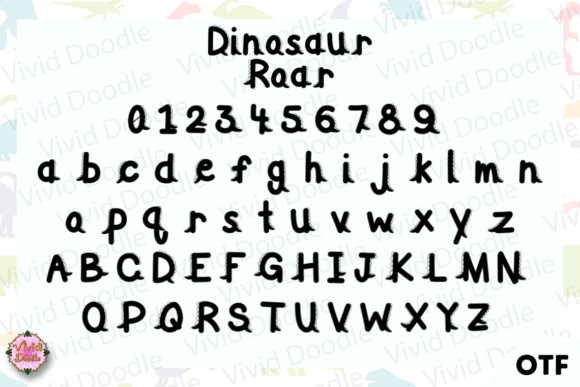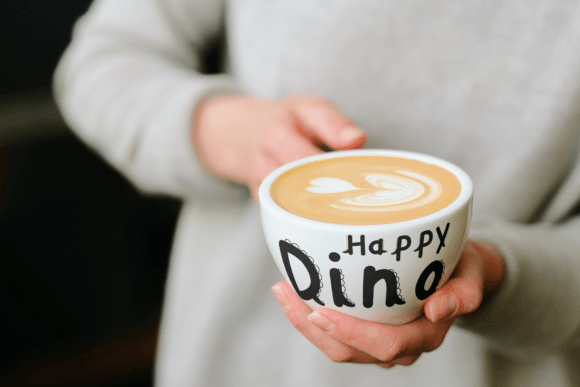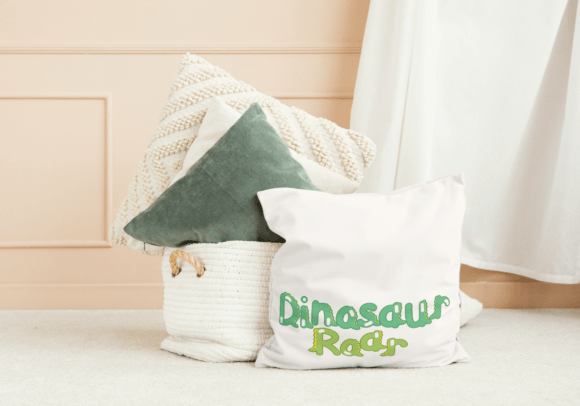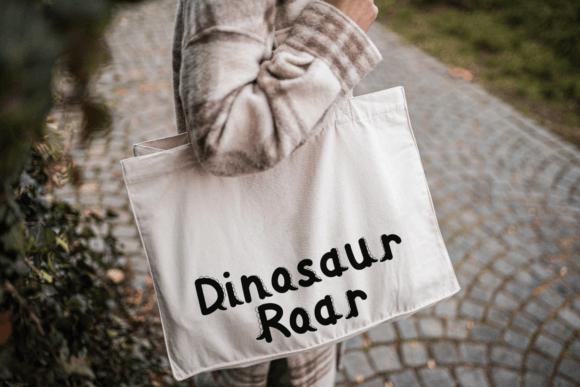
Unleash Your Creativity with Dinosaurs Roar Font: The Ultimate Typeface for Designers and Crafters
Are you tired of using the same old fonts in your designs? Do you want to add a touch of whimsy and playfulness to your creations? Look no further than the Dinosaurs Roar Font! This uniquely crafted typeface is perfect for designers and crafters who want to infuse their projects with a festive cheer and warmth. In this article, we’ll explore the features and benefits of Dinosaurs Roar Font and show you how to elevate your designs with its charming and adorable style.
The Story Behind Dinosaurs Roar Font
Dinosaurs Roar Font is a carefully crafted typeface that is inspired by the prehistoric world of dinosaurs. The font is designed to bring a sense of fun and playfulness to your designs, making it perfect for projects that require a creative and imaginative approach. Whether you’re working on a children’s book, a craft project, or a marketing campaign, Dinosaurs Roar Font is sure to add a touch of magic to your creations.
Key Features of Dinosaurs Roar Font
So, what makes Dinosaurs Roar Font so special? Here are some of its key features:
- Whimsical Design: Dinosaurs Roar Font features a unique and playful design that is sure to capture the attention of your audience. The font’s whimsical style is perfect for projects that require a creative and imaginative approach.
- Adorable and Enchanting: The font’s adorable and enchanting style makes it perfect for projects that require a touch of warmth and festivity. Whether you’re working on a children’s book or a craft project, Dinosaurs Roar Font is sure to add a touch of magic to your creations.
- Exclusive and Unique: Dinosaurs Roar Font is a one-of-a-kind typeface that is sure to set your designs apart from the rest. Its unique design ensures that your projects will stand out and grab the attention of your audience.
- Playful Touch: The font’s playful style makes it perfect for projects that require a touch of humor and creativity. Whether you’re working on a marketing campaign or a craft project, Dinosaurs Roar Font is sure to add a playful touch to your creations.
Benefits of Using Dinosaurs Roar Font
So, why should you use Dinosaurs Roar Font in your designs? Here are some of its benefits:
- Elevate Your Designs: Dinosaurs Roar Font is sure to elevate your designs and add a touch of creativity and imagination to your projects.
- Perfect for Designers and Crafters: The font is perfect for designers and crafters who want to add a touch of whimsy and playfulness to their creations.
- Festive Cheer and Warmth: Dinosaurs Roar Font is designed to bring a sense of festive cheer and warmth to your designs, making it perfect for seasonal projects and promotions.
| Author | VividDoodle |
In conclusion, Dinosaurs Roar Font is a uniquely crafted typeface that is perfect for designers and crafters who want to add a touch of whimsy and playfulness to their creations. With its adorable and enchanting style, festive cheer and warmth, and exclusive and unique design, Dinosaurs Roar Font is sure to elevate your designs and make them roar with creativity! So why wait? Download Dinosaurs Roar Font today and start creating your own unique and imaginative projects!